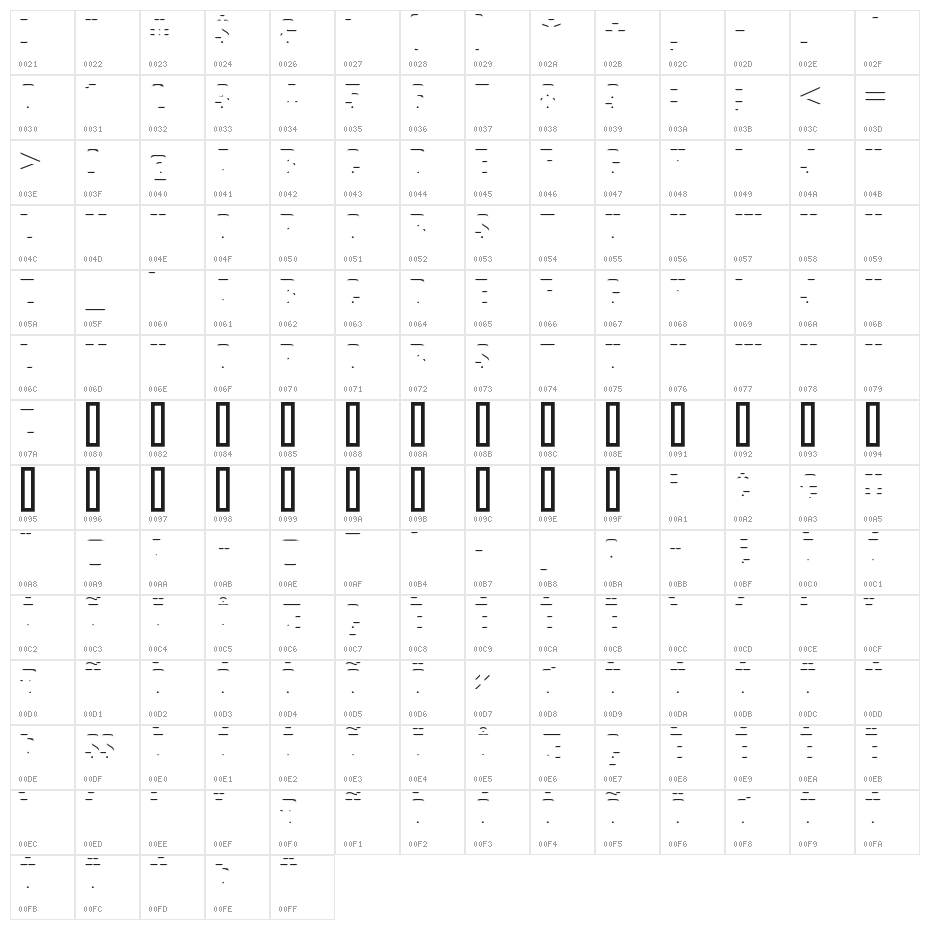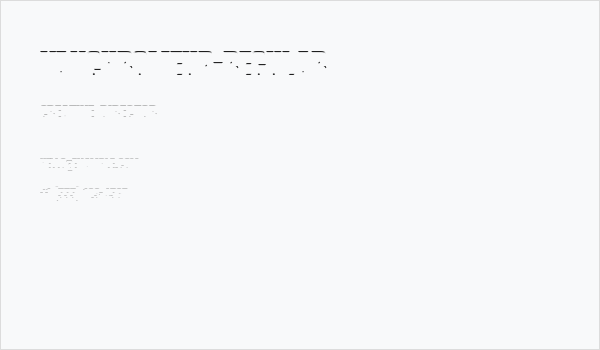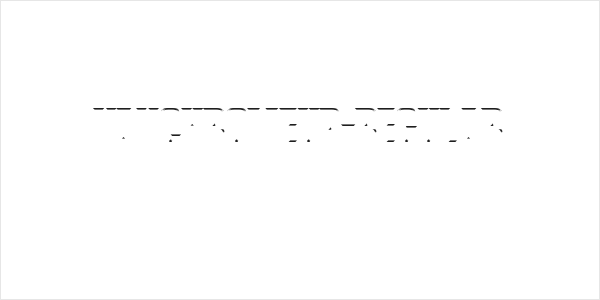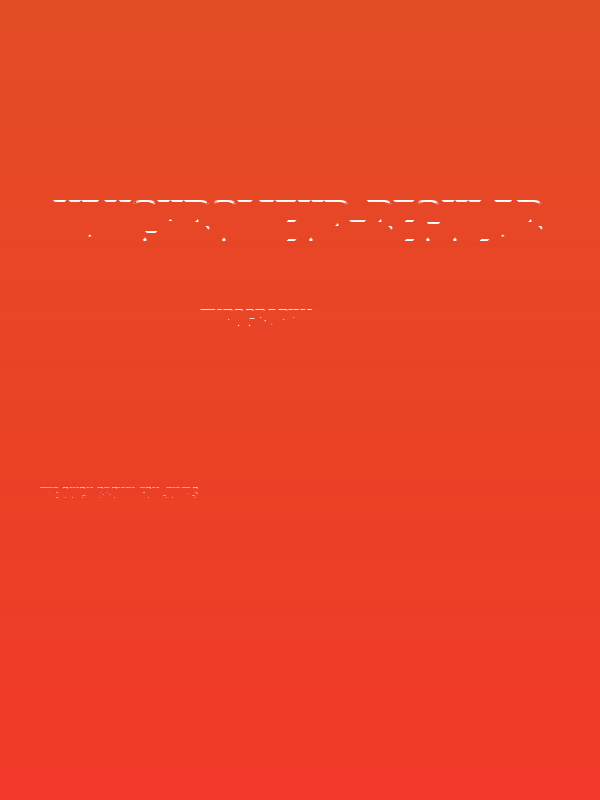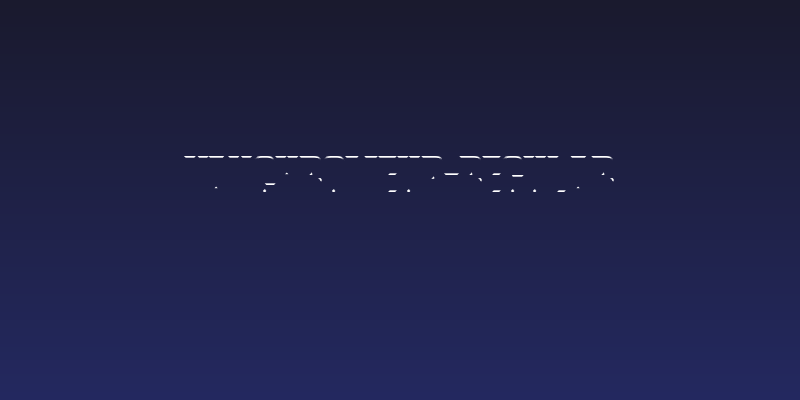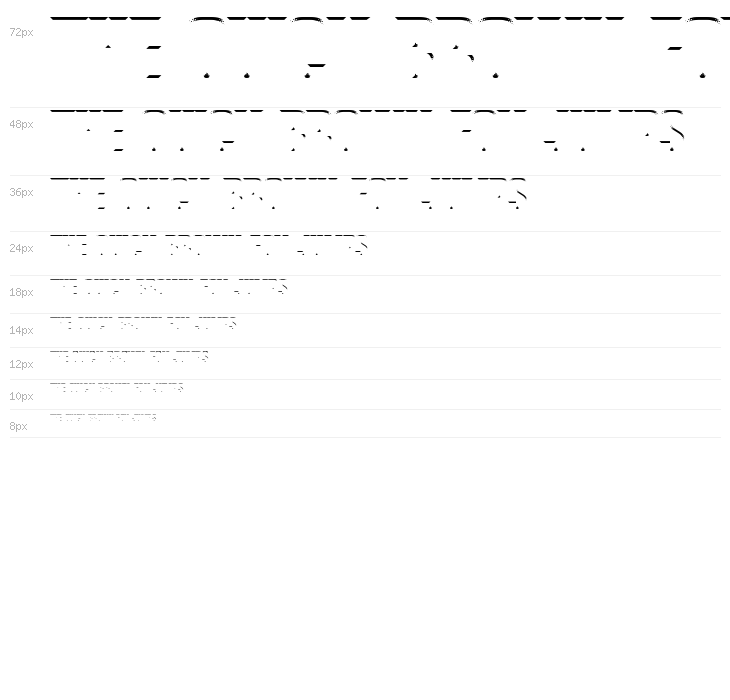
VanchromeUp-Regular Font
VanchromeUp-Regular Description
This font features a unique and modern design with a futuristic flair. The characters are constructed with a combination of sharp angles and smooth curves, giving it a dynamic and energetic appearance. The uppercase and lowercase letters maintain a consistent style, with a geometric influence that is evident in the uniformity of the letterforms. The numbers and special characters are designed to complement the alphabet, ensuring a cohesive look across all text. This font's distinctive style makes it suitable for projects that require a bold and eye-catching typeface.